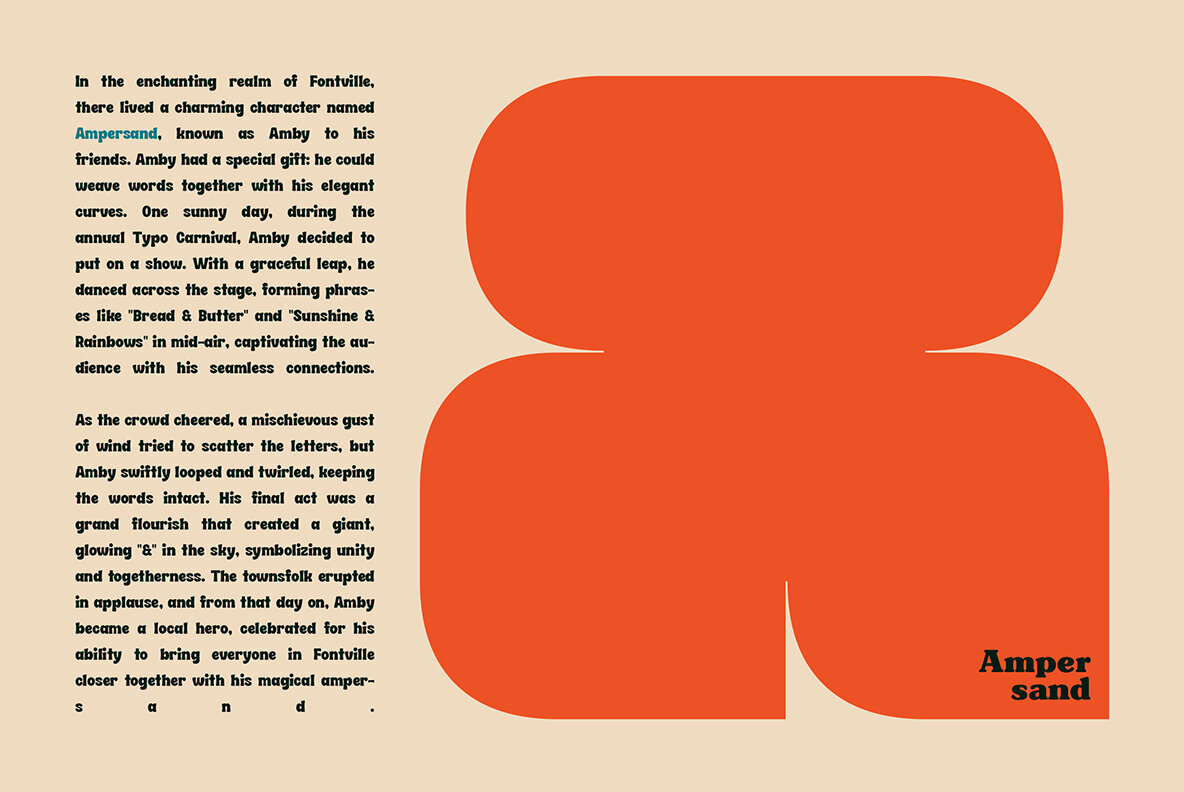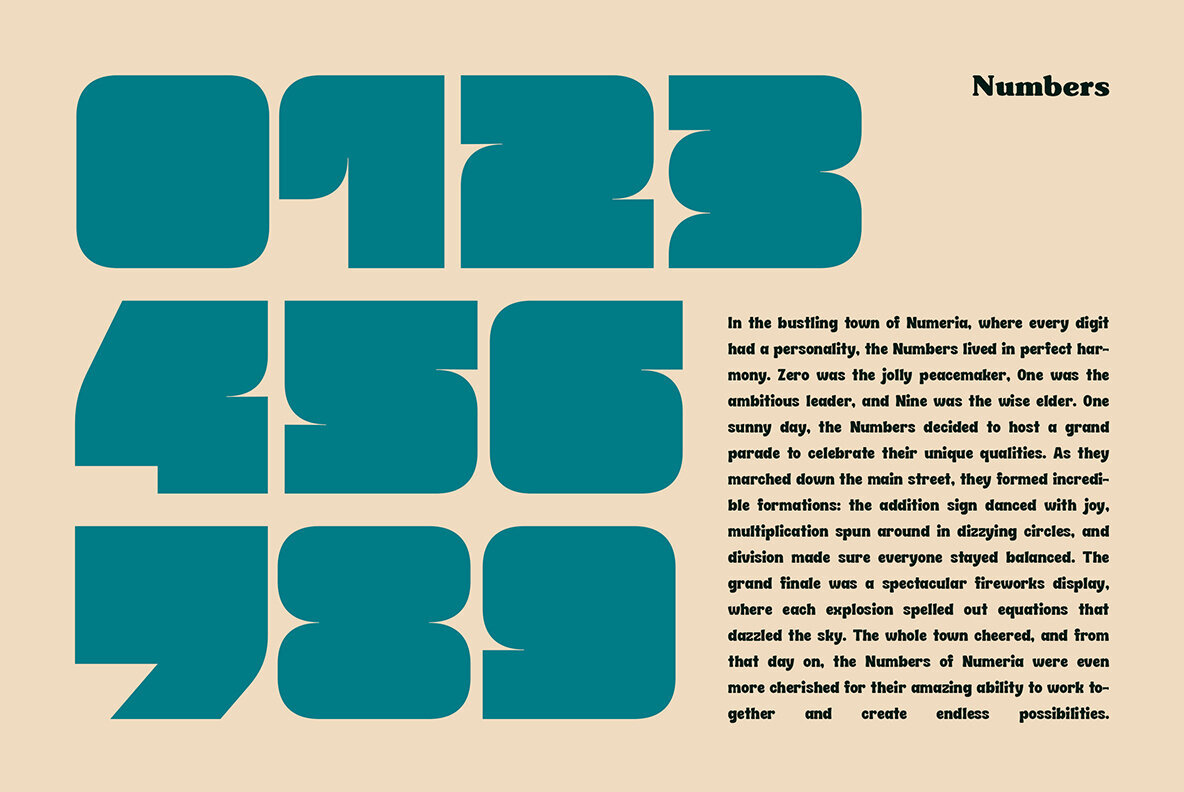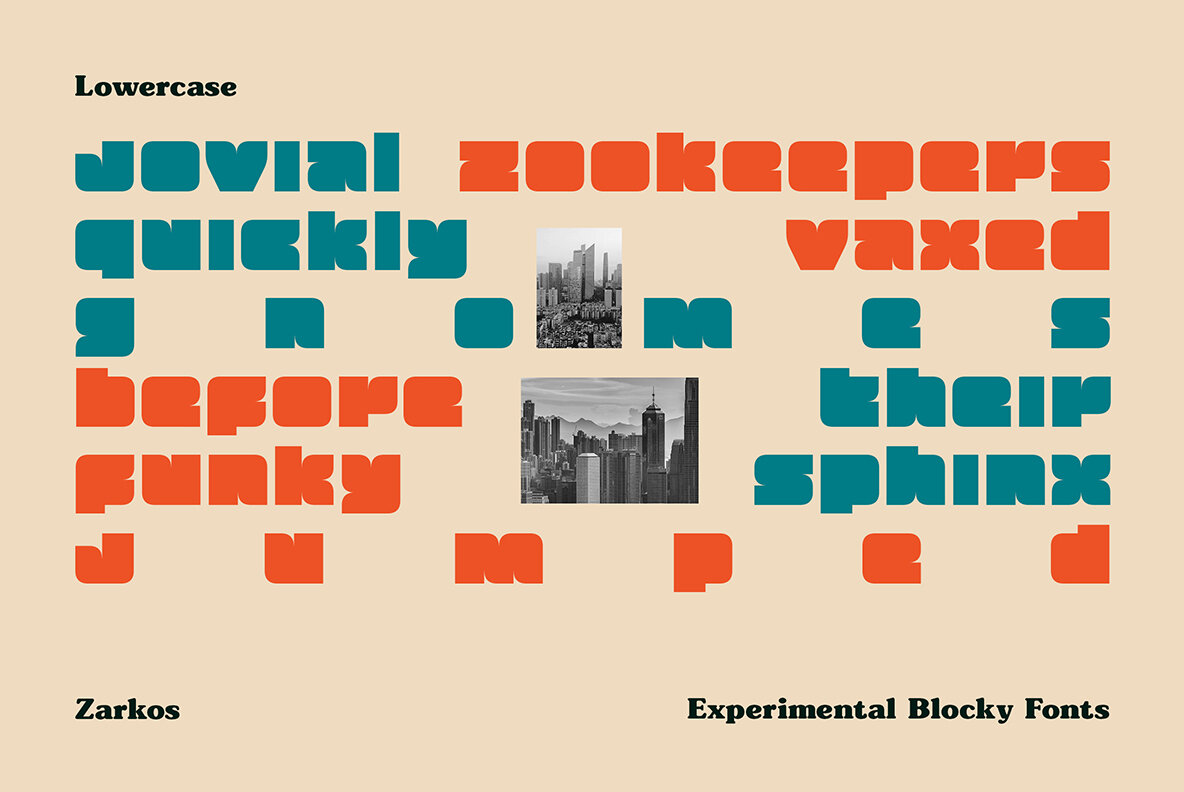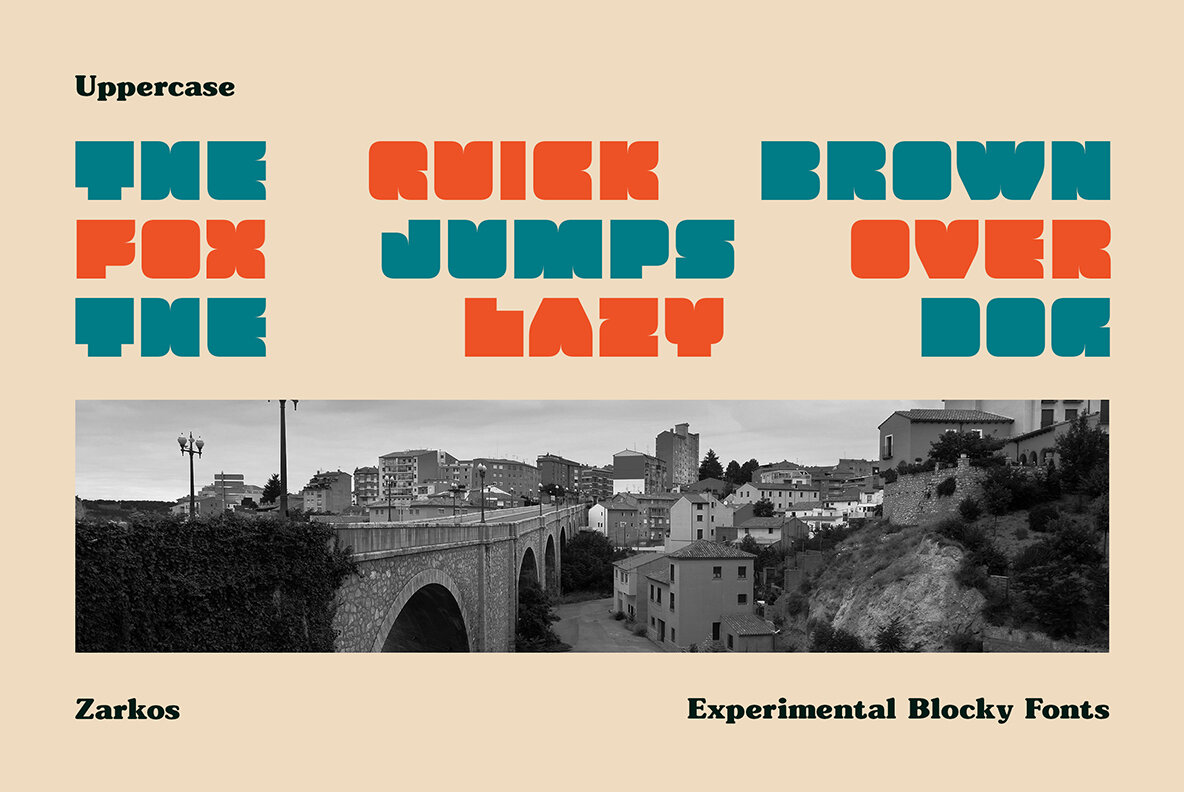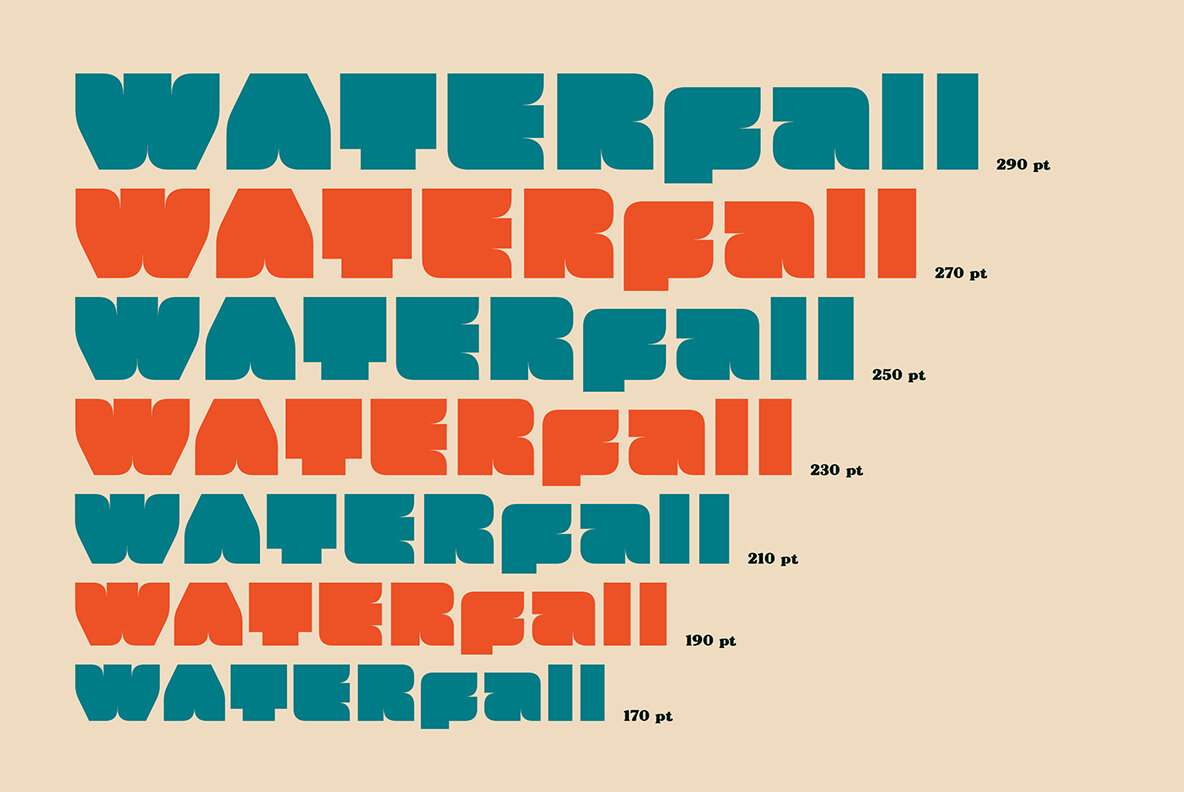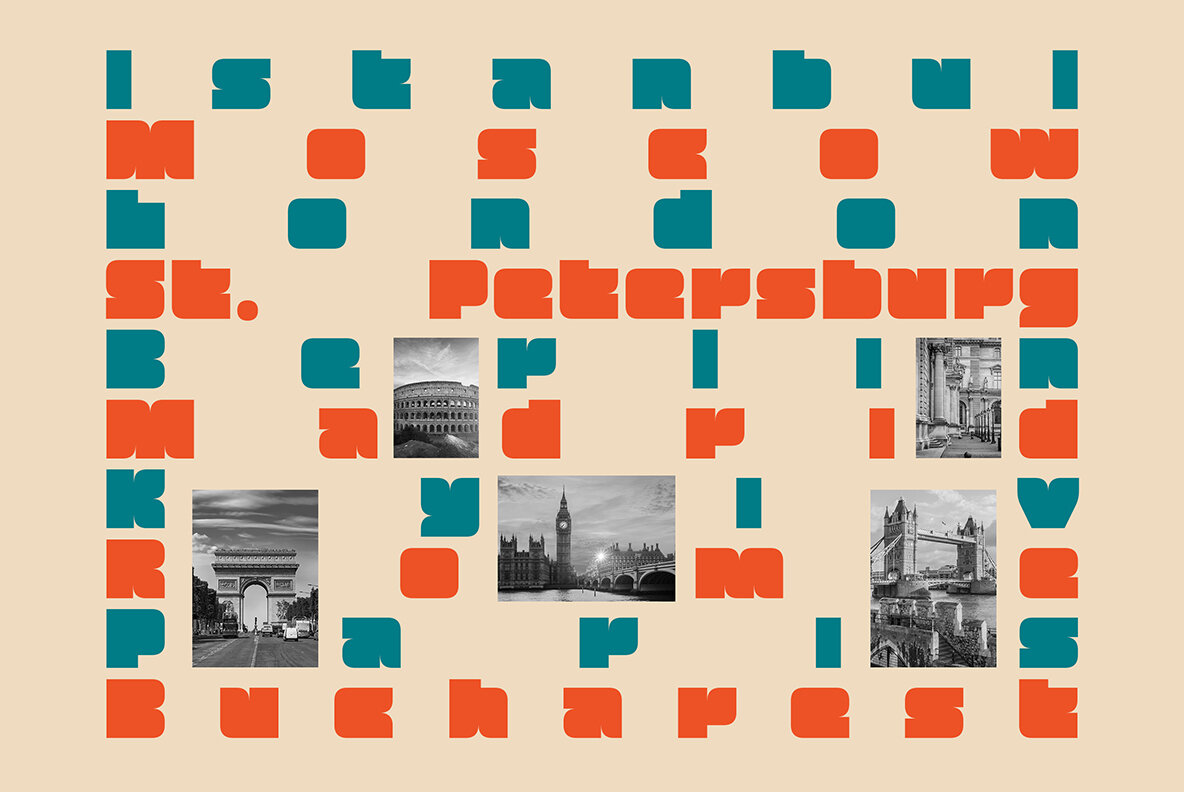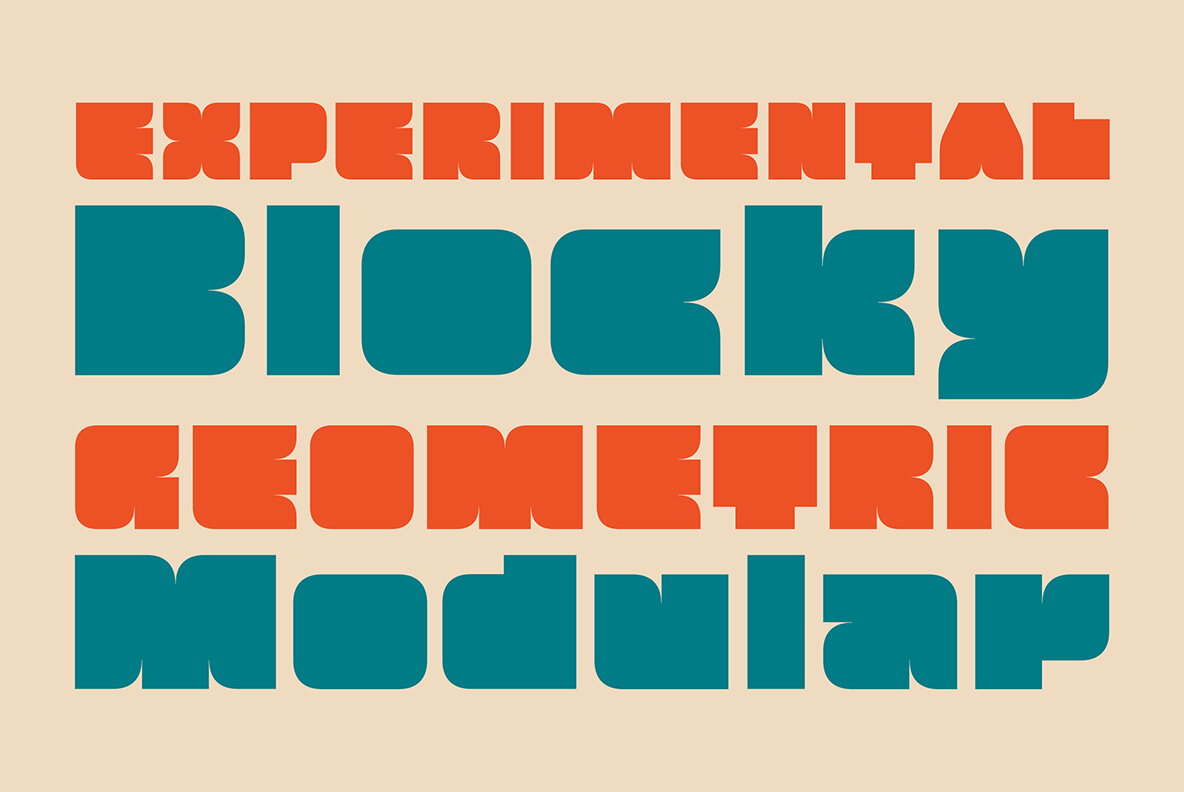
Zarkos Font
Zarkos Regular
Zarkos is not just a font; it’s a bold statement in typography. Designed for those who dare to be different, Zarkos combines form and function in a unique, geometric style. Its blocky, brave aesthetics challenge the ordinary and push the boundaries of design. Whether you are creating minimalist masterpieces or bold, disruptive visuals, Zarkos provides a strong foundation for your design revolution.
Ideal for iconic logos, bold branding, striking visuals, and groundbreaking art installations, Zarkos ignites creativity and imagination. Unlock the potential of your designs and venture beyond the conventional with this daring and distinct font. The sky is truly the limit.